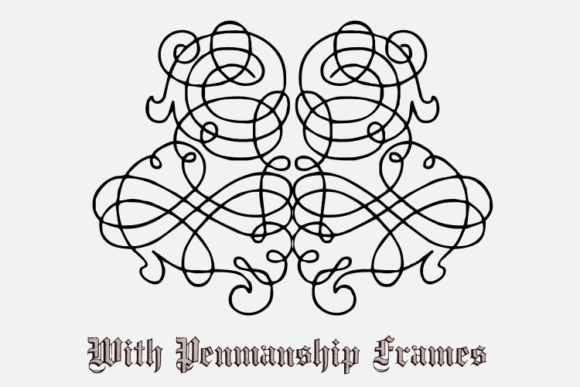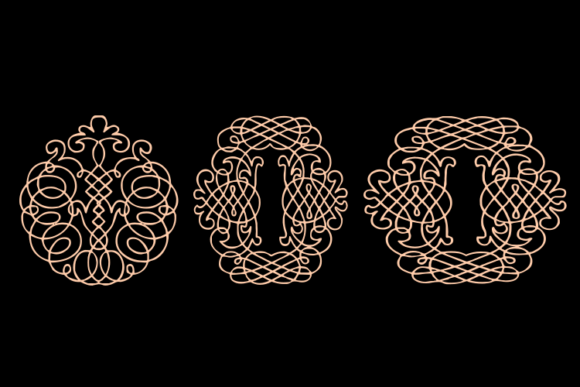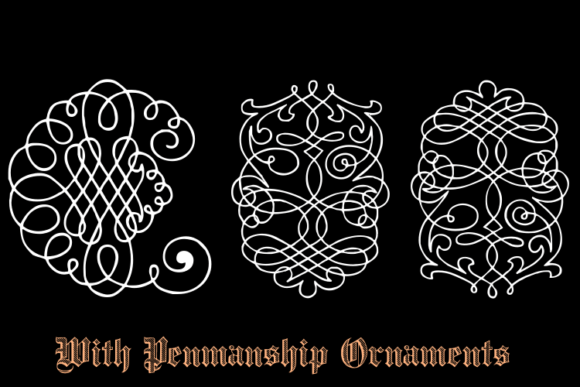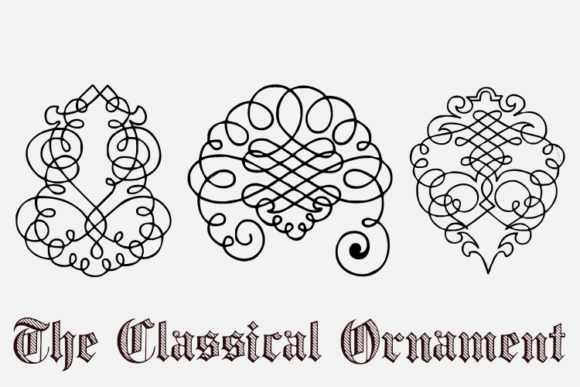
Unleashing the Timeless Beauty of Calligraphia Latina Soft 2 Font
As a designer, have you ever found yourself captivated by the intricate details of ancient manuscripts and the elegance of 18th century French neoclassical art? For me, it’s the moment when the perfect blend of creativity and nostalgia comes together, sparking a new wave of inspiration. It’s this exact feeling that Calligraphia Latina Soft 2 Font aims to evoke, transporting you to an era of refined beauty and sophistication.
Calligraphia Latina Soft 2 Font is a masterfully crafted collection of ornaments, born from the popular trend of classic ornaments. With over 52 fascinating ornaments at your disposal, this font is the perfect addition to any design project. Whether you’re working on a branding project, a wedding invitation, or a book cover, Calligraphia Latina Soft 2 Font adds an air of timeless charm and sophistication, making it an invaluable asset for designers seeking to create truly memorable designs.
Calligraphia Latina Soft 2 Font Key Features
- Font Family: Calligraphia Latina Soft 2, a modern calligraphic font with a soft, elegant feel.
- Unique Characteristics: Features a unique blend of traditional calligraphy and modern design elements, making it suitable for a wide range of applications, including invitations, certificates, and editorial design.
Designer Review: Calligraphia Latina Soft 2 Font
Overall, I’m quite pleased with the Calligraphia Latina Soft 2 Font. It’s a beautiful, elegant script font that can add a touch of sophistication to any design project. Here are some of the things that work well: ✨
- The font’s soft, flowing lines create a sense of movement and fluidity.
- The subtle imperfections and irregularities add a touch of handmade charm.
- The font’s versatility makes it suitable for a wide range of design applications, from invitations and posters to book covers and packaging.
- The font may not be as readable at smaller font sizes, due to its delicate line work.
- The font’s subtlety may make it difficult to distinguish from other fonts in certain design contexts.
Overall, I think the Calligraphia Latina Soft 2 Font is a great choice for designers who want to add a touch of elegance and sophistication to their projects. While it may have some limitations, its beauty and versatility make it well worth considering.
Tips for Getting the Most Out of Calligraphia Latina Soft 2 Font
Use Calligraphia Latina Soft 2 Font for formal or elegant designs, such as invitations, certificates, or posters.
Combine the font with other decorative elements, such as flourishes or ornaments, to add visual interest.
Experiment with different font sizes and colors to create a unique and eye-catching design.
Certificates and awards
Formal event invitations and announcements
Historical or vintage-inspired designs